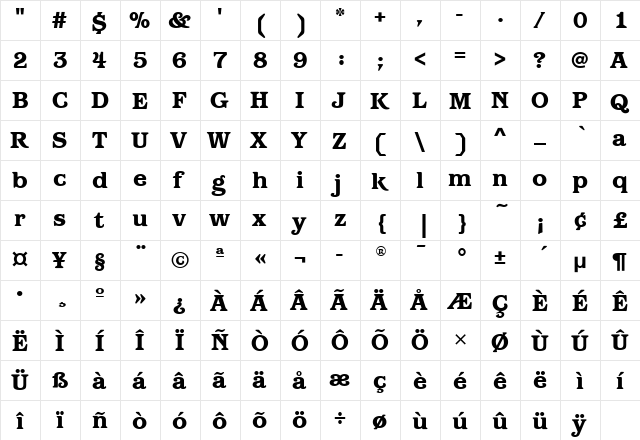
BarcelonaMdITC Heavy
| Style | Heavy |
| Foundry | E+F Designstudio. ITC Barcelona is a registered trademark of International Typeface Corporation |
Design Context for BarcelonaMdITC Typeface
BarcelonaMdITC offers clean, dependable letterforms without strong stylistic allegiance, making it a practical choice for designers who need flexibility.
Pro Tip: Use BarcelonaMdITC in both headline and body roles to test its range before committing to a single application.